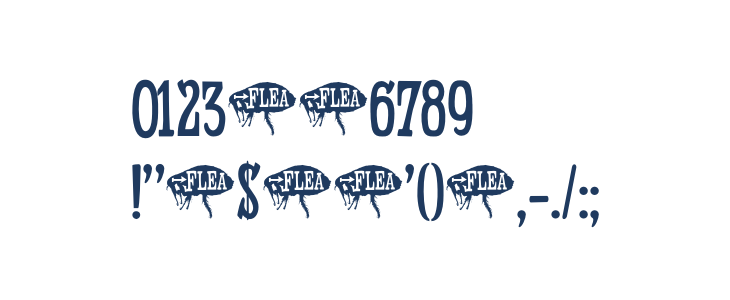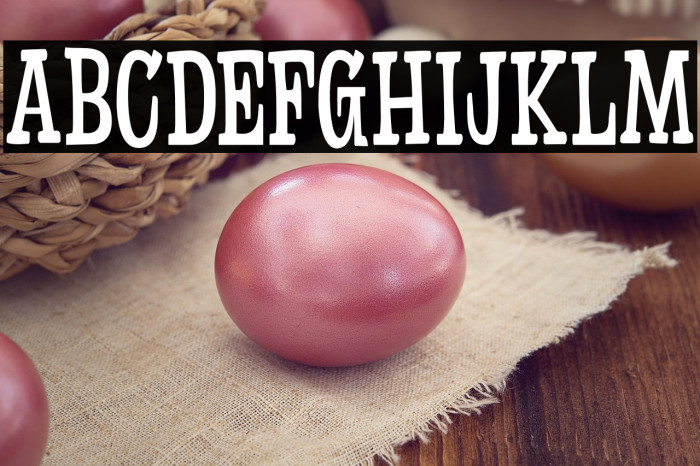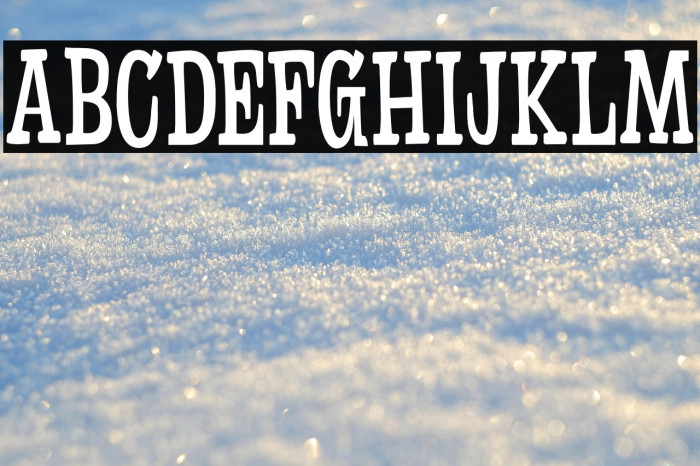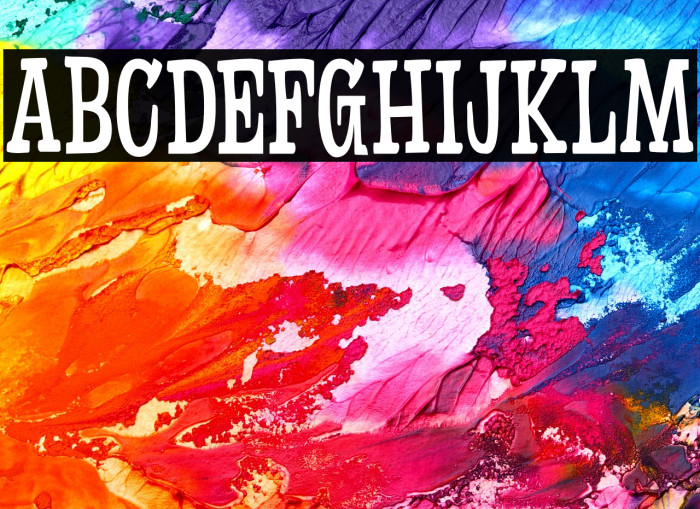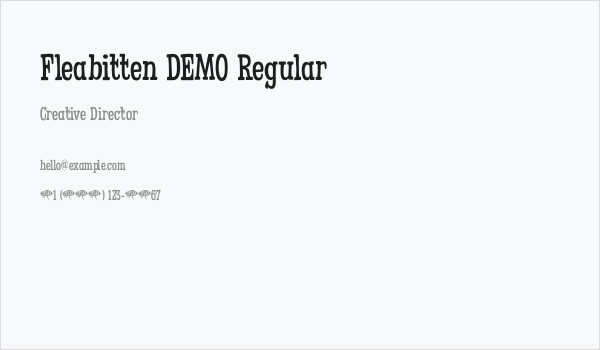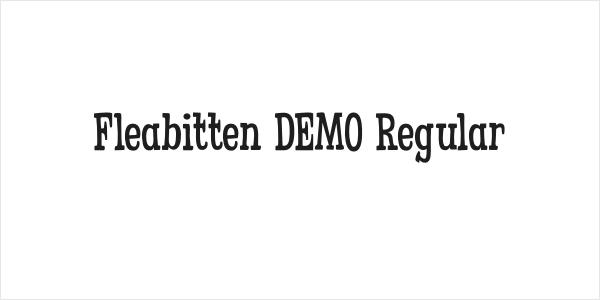
Fleabitten DEMO Regular Font
Fleabitten DEMO Regular Description
This font features a bold and playful style with a distinct vintage flair. The characters are slightly condensed with a whimsical, uneven baseline that adds a quirky charm. The uppercase letters are tall and commanding, while the lowercase letters maintain a consistent height, creating a cohesive look. The numbers are bold and easily readable, and the special characters are uniquely styled, adding to the font's overall personality. The font's decorative elements, such as the flea motif, enhance its playful and retro aesthetic, making it ideal for creative and eye-catching designs.
Overall StyleVintage, Decorative
Proposed ProjectsIdeal for retro-themed posters, playful branding, unique packaging designs, and eye-catching headlines.